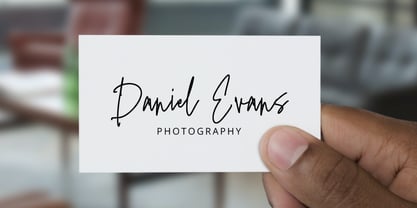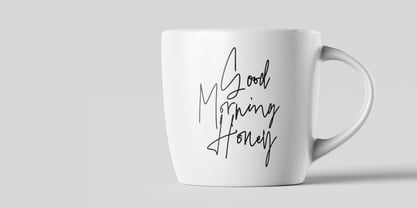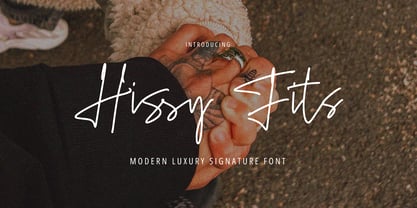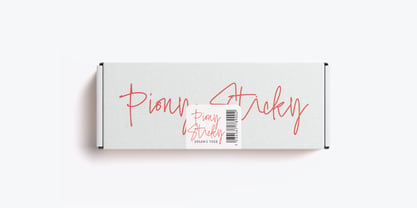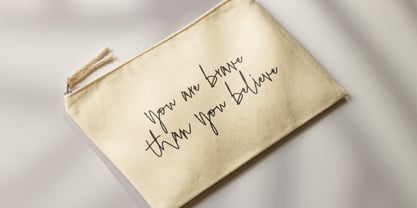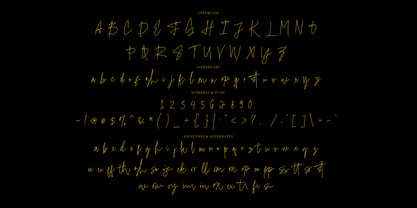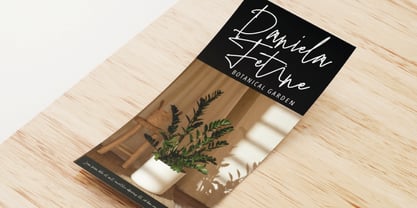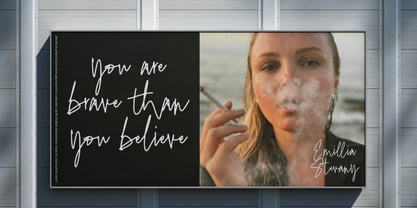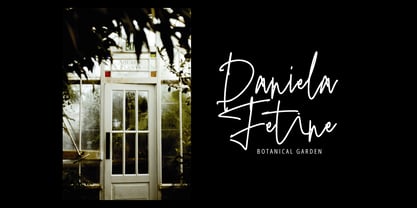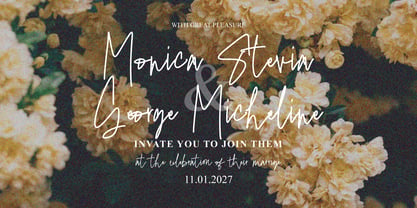
Hissy Fits Signature
by Tebaltipis Studio
The Hissy Fits Signature Font Family was designed by Dzulka Elfira and published by Tebaltipis Studio. Hissy Fits Signature contains 1 styles. More about this family
Hissy Fits Signature is a type of font designed to imitate a personal handwriting style, creating an elegant, natural, and classy impression. With soft curves and flowing lines, this font gives an authentic impression like a real signature. Suitable for branding, logos, business cards, invitations, or design projects that require a personal and luxurious touch. The uniqueness of Signature Font lies in its ability to convey a strong and understated personality through every beautiful and captivating stroke of the letter.
Designers: Dzulka Elfira
Foundry: Tebaltipis Studio